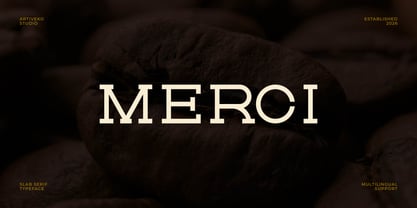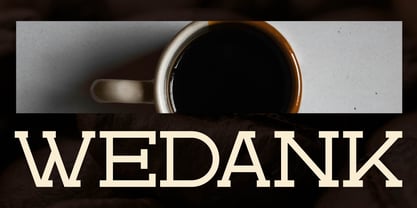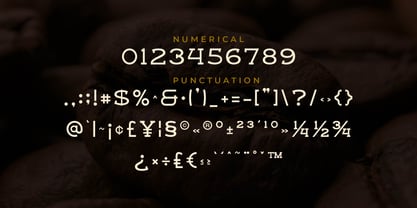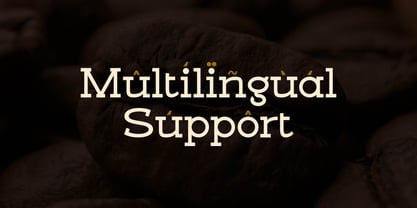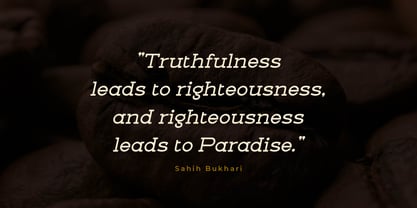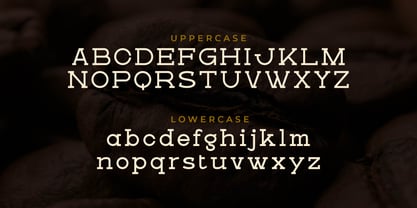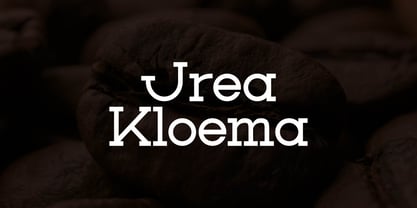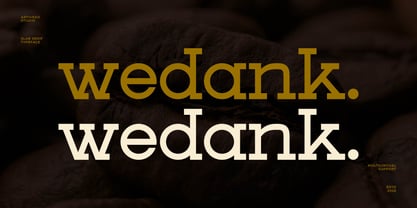
Wedank
by Artiveko
The Wedank Font Family was designed by Iwan Alwan and published by Artiveko. Wedank contains 2 styles and family package options. More about this family
Wedank is a premium slab serif typeface that seamlessly combines strength with refined elegance. With its solid slab serifs, balanced proportions, and meticulously crafted letterforms, Wedank offers a bold yet sophisticated presence in contemporary design. Ideal for branding, logos, packaging, editorial layouts, and high-end visual identity, Wedank presents a unique fusion of stability and style. Its structured form conveys confidence and reliability, while the refined details enhance the overall aesthetic, giving it a luxurious appeal. Perfect for businesses and creatives seeking a strong typographic voice without sacrificing elegance, Wedank excels in both print and digital applications. More than just a font, Wedank embodies a harmonious balance of power, class, and modern sophistication.